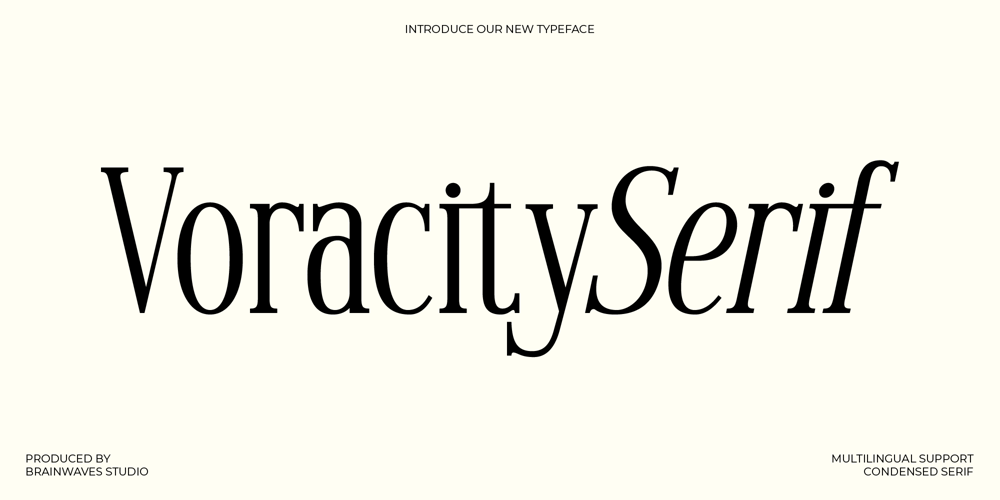
Voracity Serif Display Font Family was designed by Lucky Fitriadi and published by Brainwaves Studio. Voracity Serif Display contains 2 styles and family package options. A modern serif typeface that exudes timeless elegance.Voracity Serif Display is a versatile font that seamlessly blends classic serif aesthetics with contemporary design principles. Its clean lines, strong contrasts, and distinctive serifs create a striking visual impact, making it an ideal choice for a wide range of applications.this font have a features of Modern Serif, Retro Elegance, Beauty & Cleanliness, Masculine, Versatile. Ideal used for Brand Identity, Magazine Headlines, Banners and Posters, Logotypes.